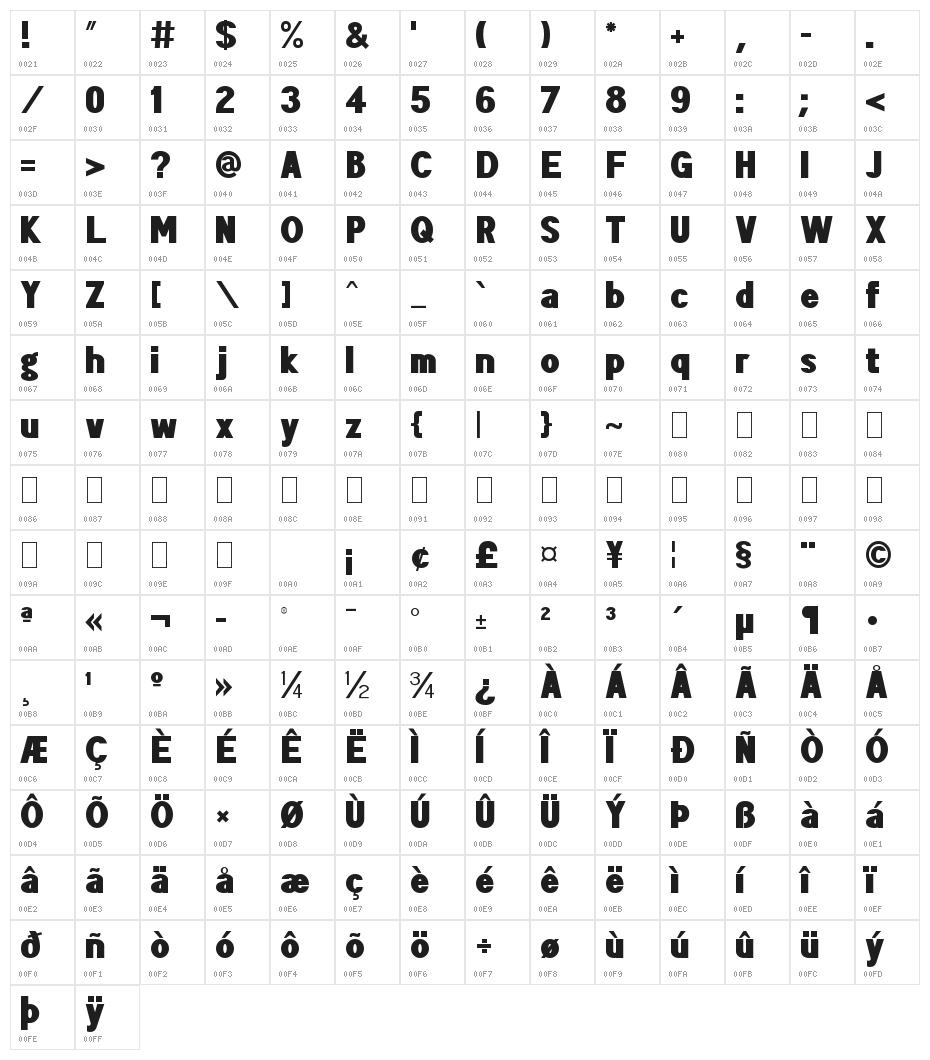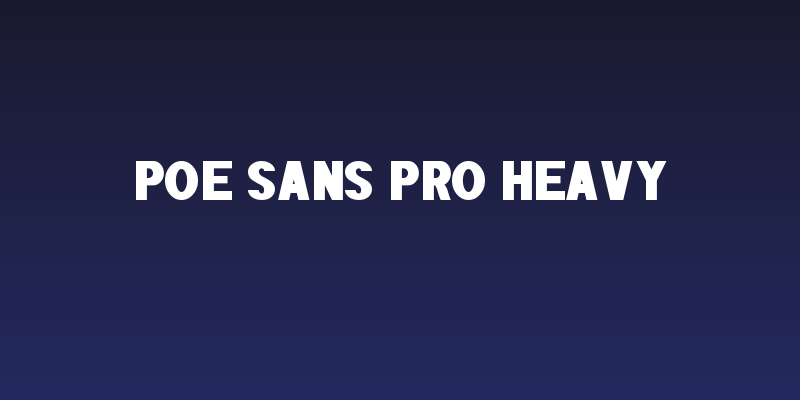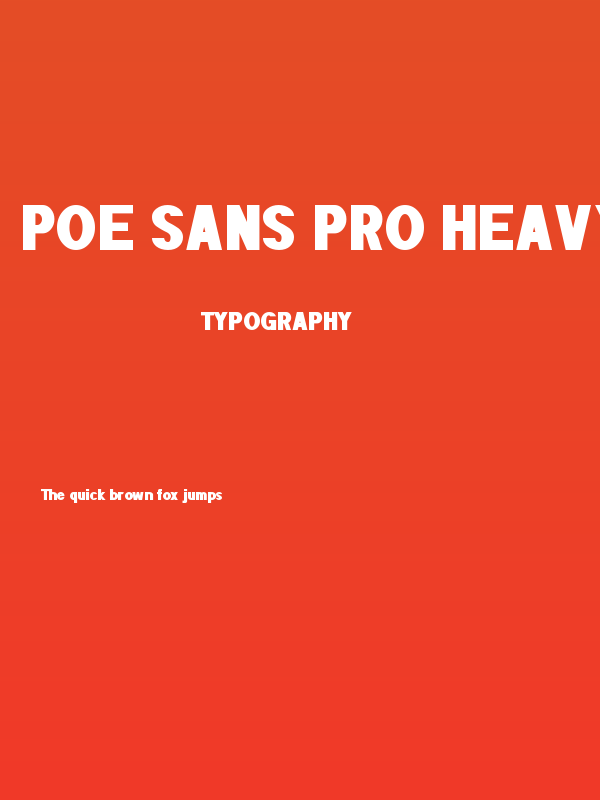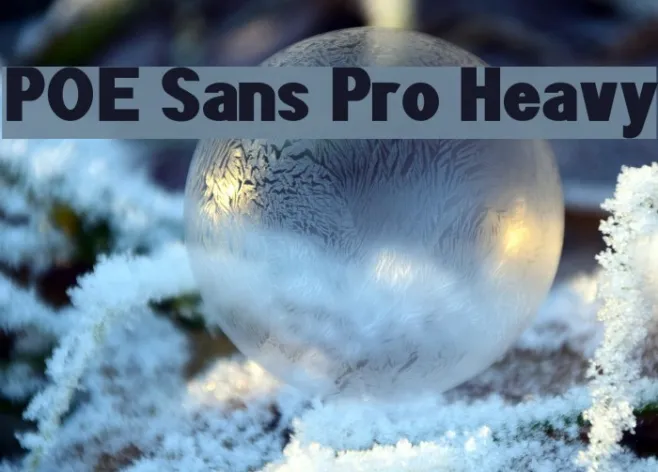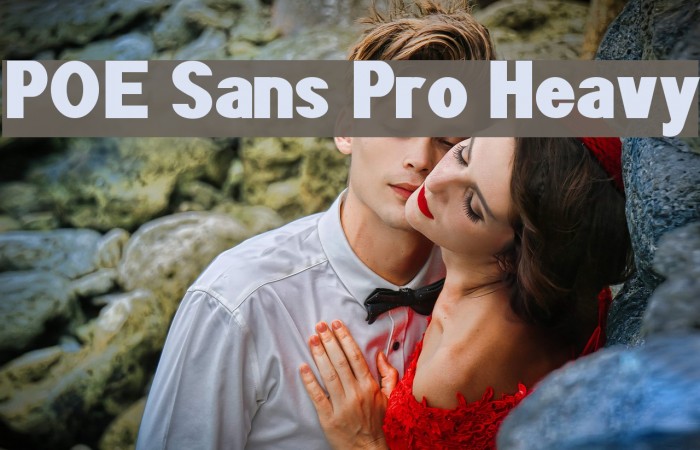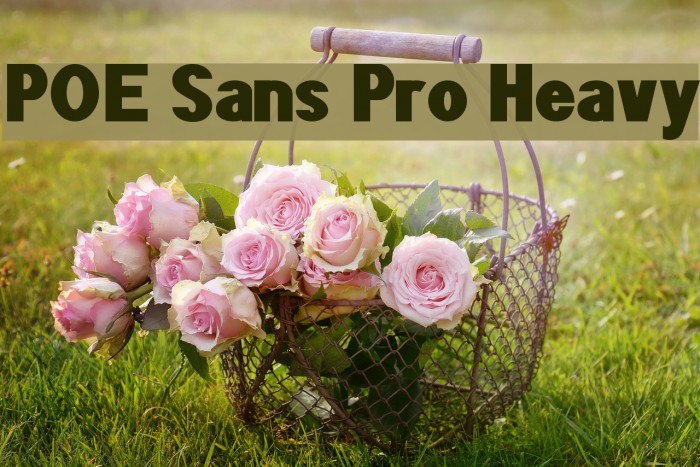
POE Sans Pro Heavy Font
POE Sans Pro Heavy Description
This typeface features a bold and robust design with a strong presence. The characters are uniformly thick, providing a consistent and powerful look. The uppercase and lowercase letters maintain a uniform width, contributing to a cohesive appearance. The numbers are equally bold, ensuring they stand out clearly. Special characters are designed with the same boldness, making them easily recognizable. The overall style is modern and impactful, suitable for making statements in design projects.